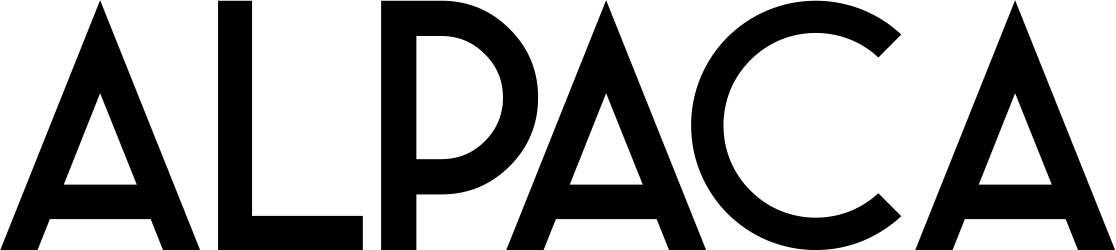
Alpaca Font
What could be better than the Alpaca font with the retro and ’50s font style? The exciting thing about this retro font is that some of the characters are filled in.
We can say that the four variations in this font give you the freedom to use it to design posters and flyers for casinos and have the best sales. If you are interested in designing postcards, packages, and classical music covers use this font.
This is an improvement on Alpaca 54 which was one of the first fonts I ever made – the edges on Alpaca 54 were rounded and smooth characters seemed to have choppy lettering, not to mention the lack of punctuation and the randomly grunge lowercase.